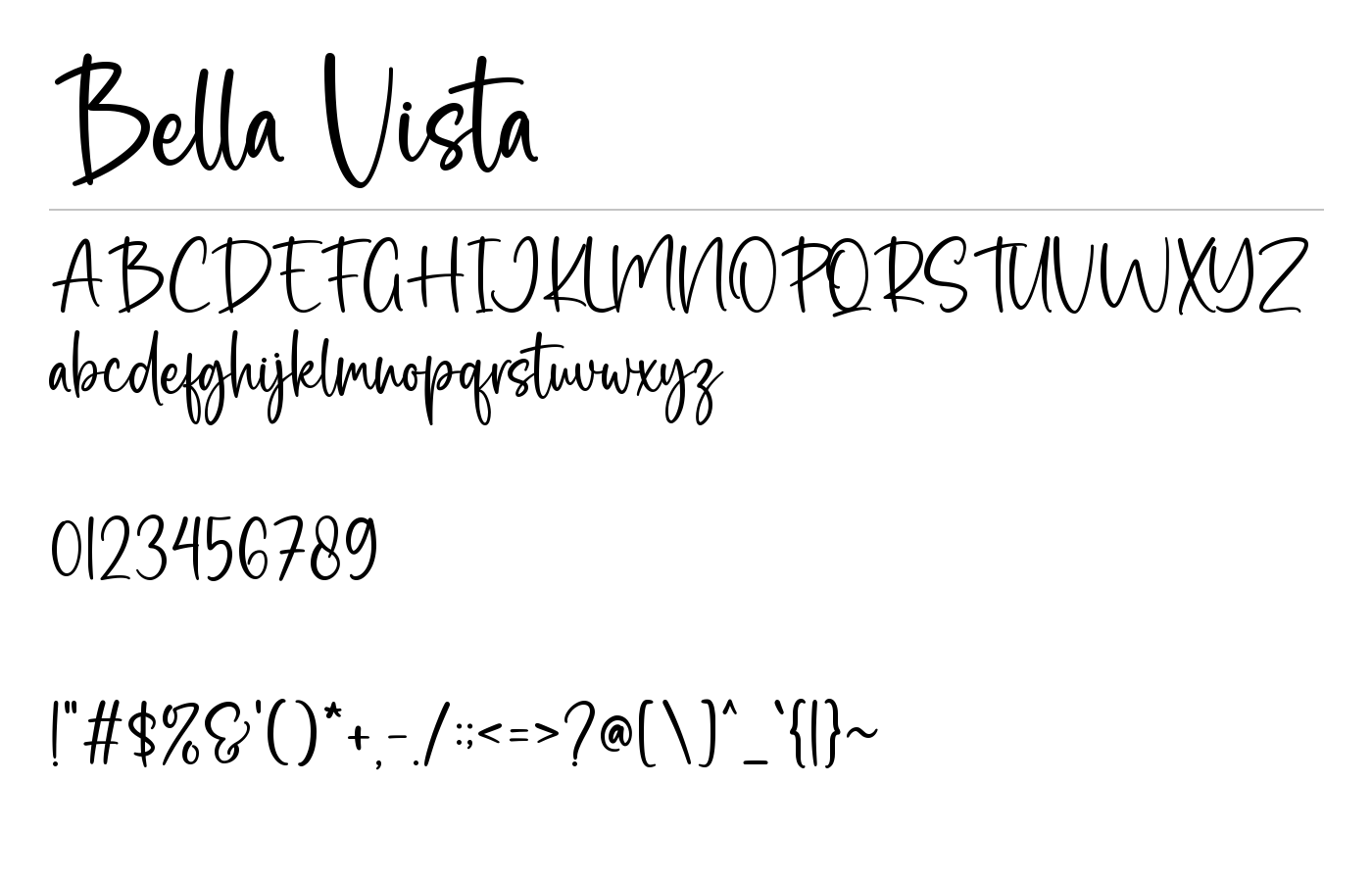
Bella Vista is a playful and casual handwritten script font featuring tall, slender letterforms with light stroke weight and a slightly uneven baseline that adds to its charm. Its informal, friendly style makes it perfect for projects that require a personal touch, such as invitations, branding for lifestyle products, or social media graphics. This font works especially well in headlines and short texts where a warm, approachable feel is desired.
Bella Vista Font
About Bella Vista Font